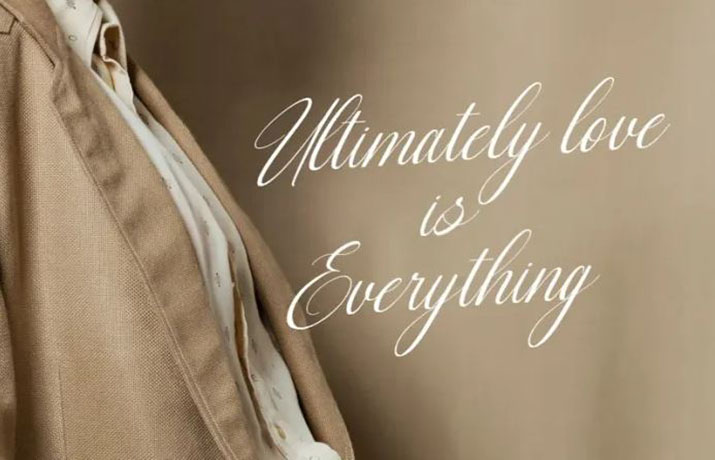
Levigate Font is a stylish and eye-catching script typeface that has a modern touch with a handwritten calligraphy style. It was designed and published by Din Studio.
Each letter in this font is carefully crafted with high contrast, adding a vibrant and appealing quality to the font. The combination of thick and thin strokes creates a sense of fluidity and movement, adding a sense of energy and vibrancy to your typography.
Its fluid and sweeping letter style makes it ideal for various purposes such as logos, branding, wedding cards, invitations, greeting cards, social media graphics, and more.
“Levigate typeface can be found in a single style along with Open Type features. This single style contains 609 unique glyphs and 9 ligatures. Moreover, it also supports 97 multilingual languages”.
- Owing to its fashionable and contemporary look, it can be used for a variety of purposes, including social media posts, banners, unique signs, quotes, titles, thumbnail titles, t-shirt printing, signs, birthday cards, official cards, wedding cards, stickers, tattoos, and product designs.
This font supports 97 multilingual languages.